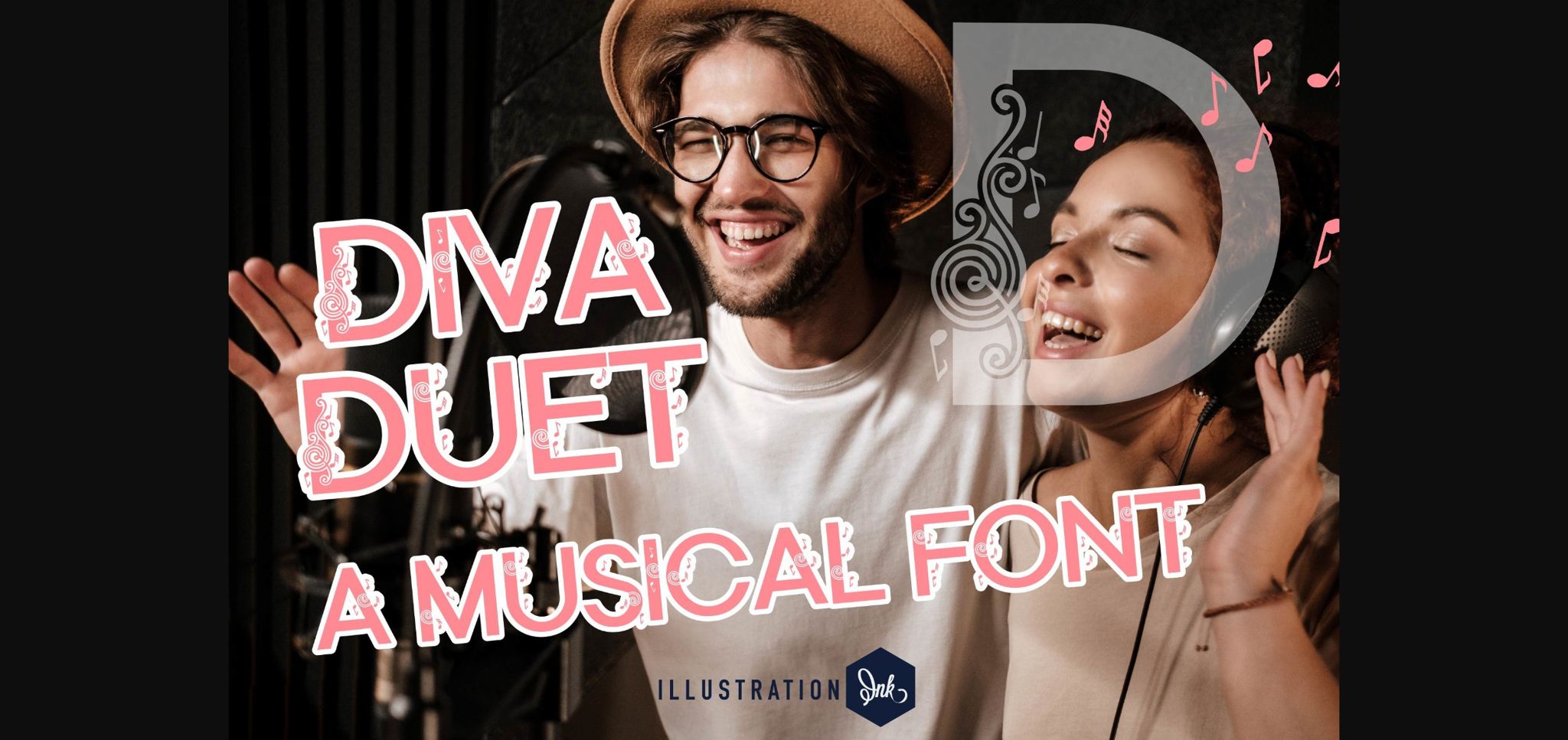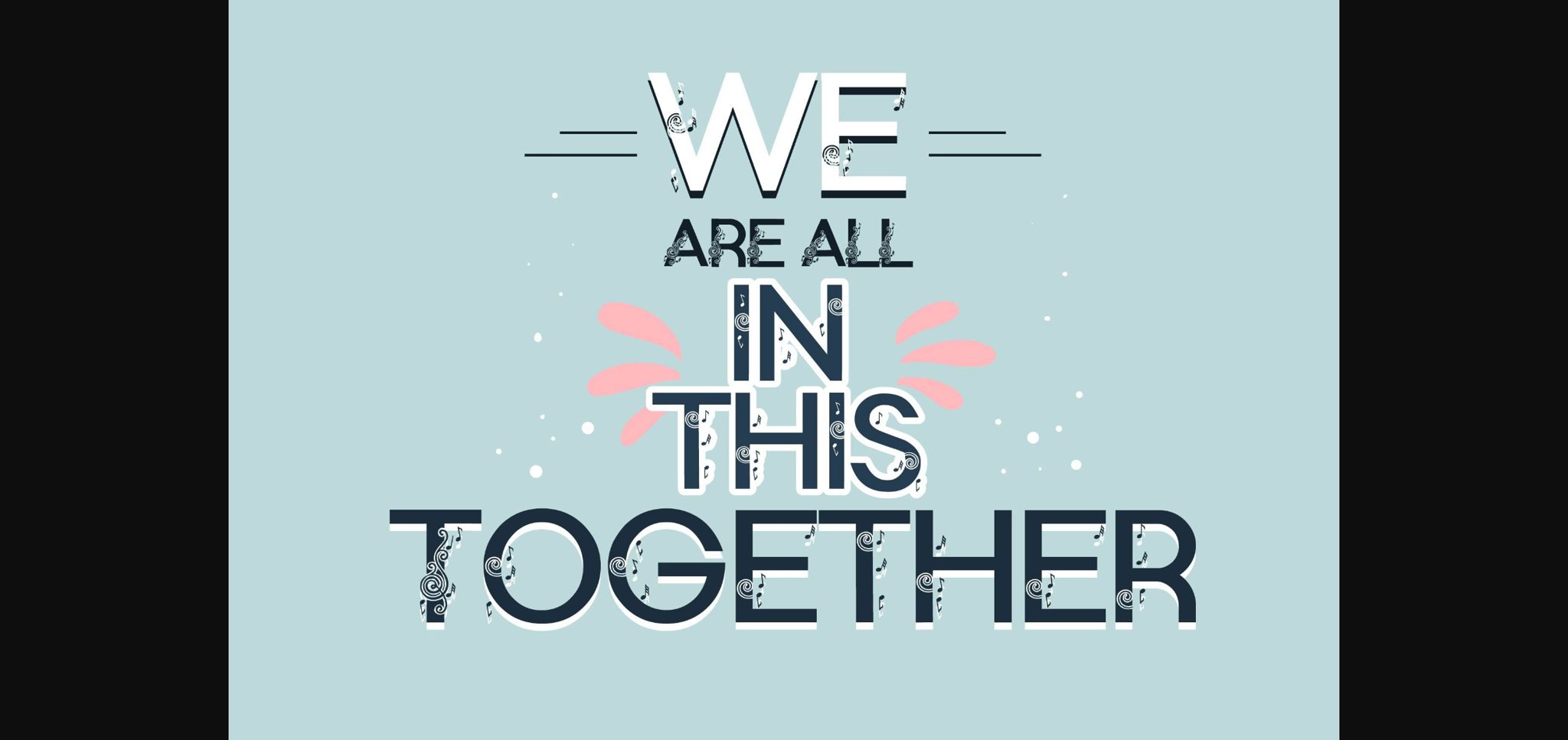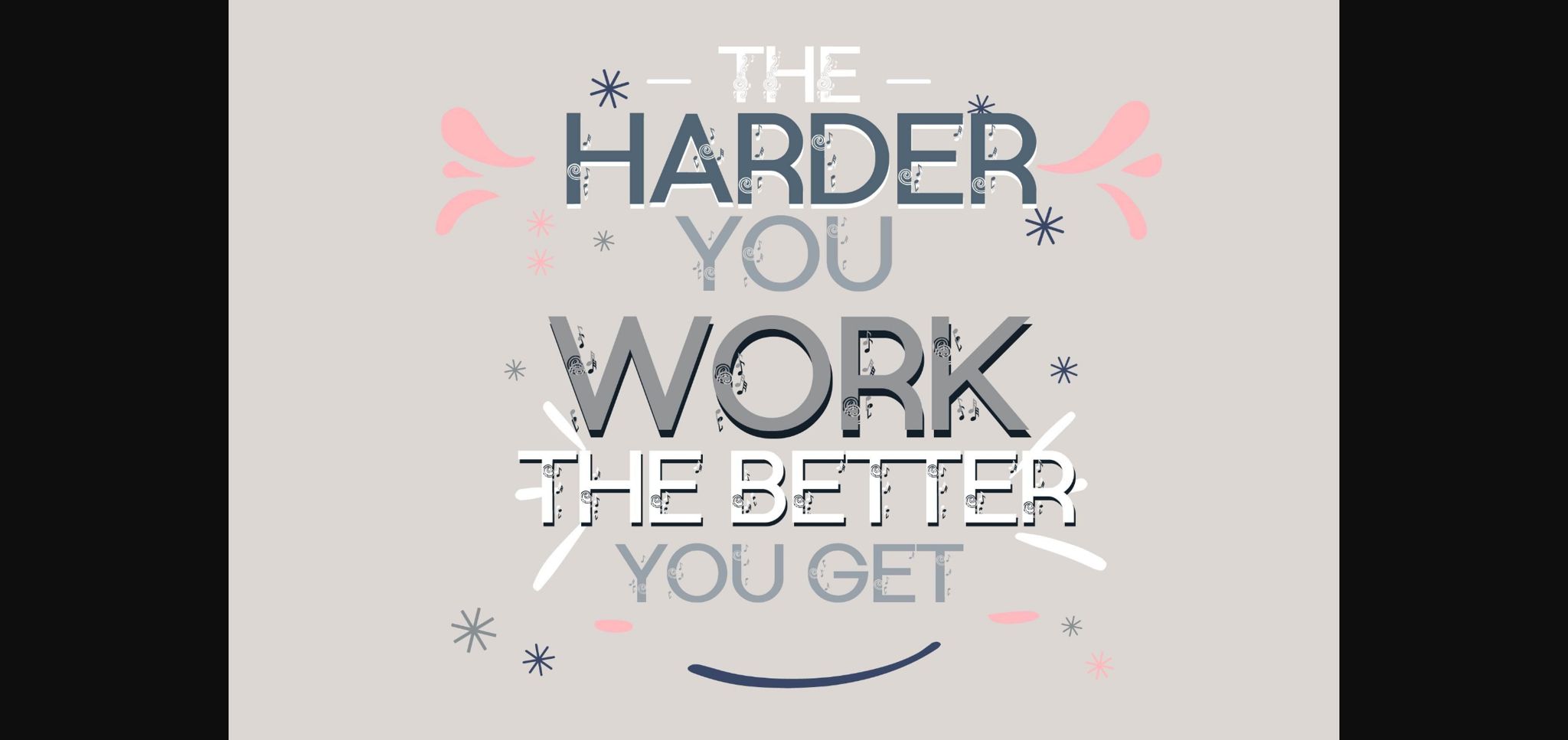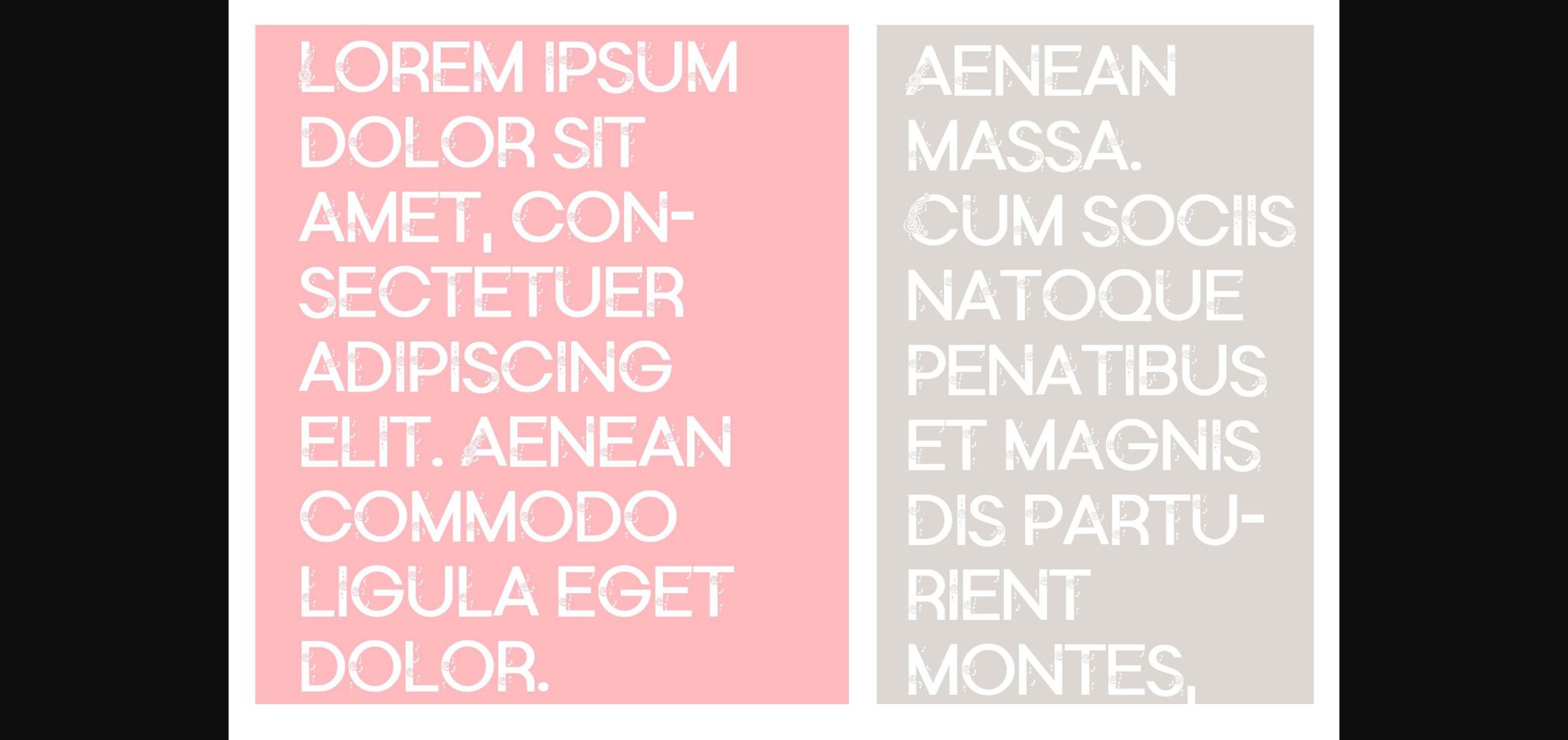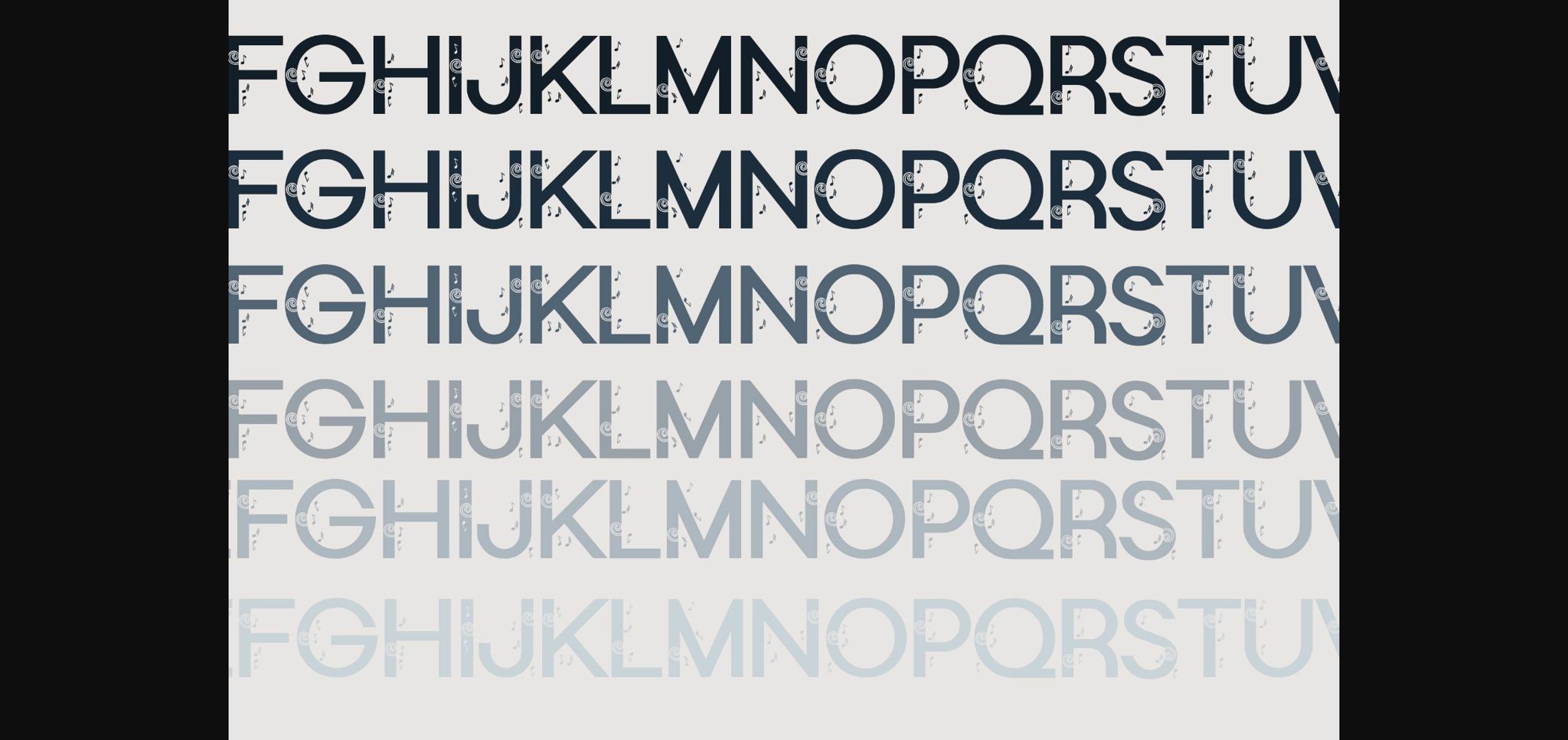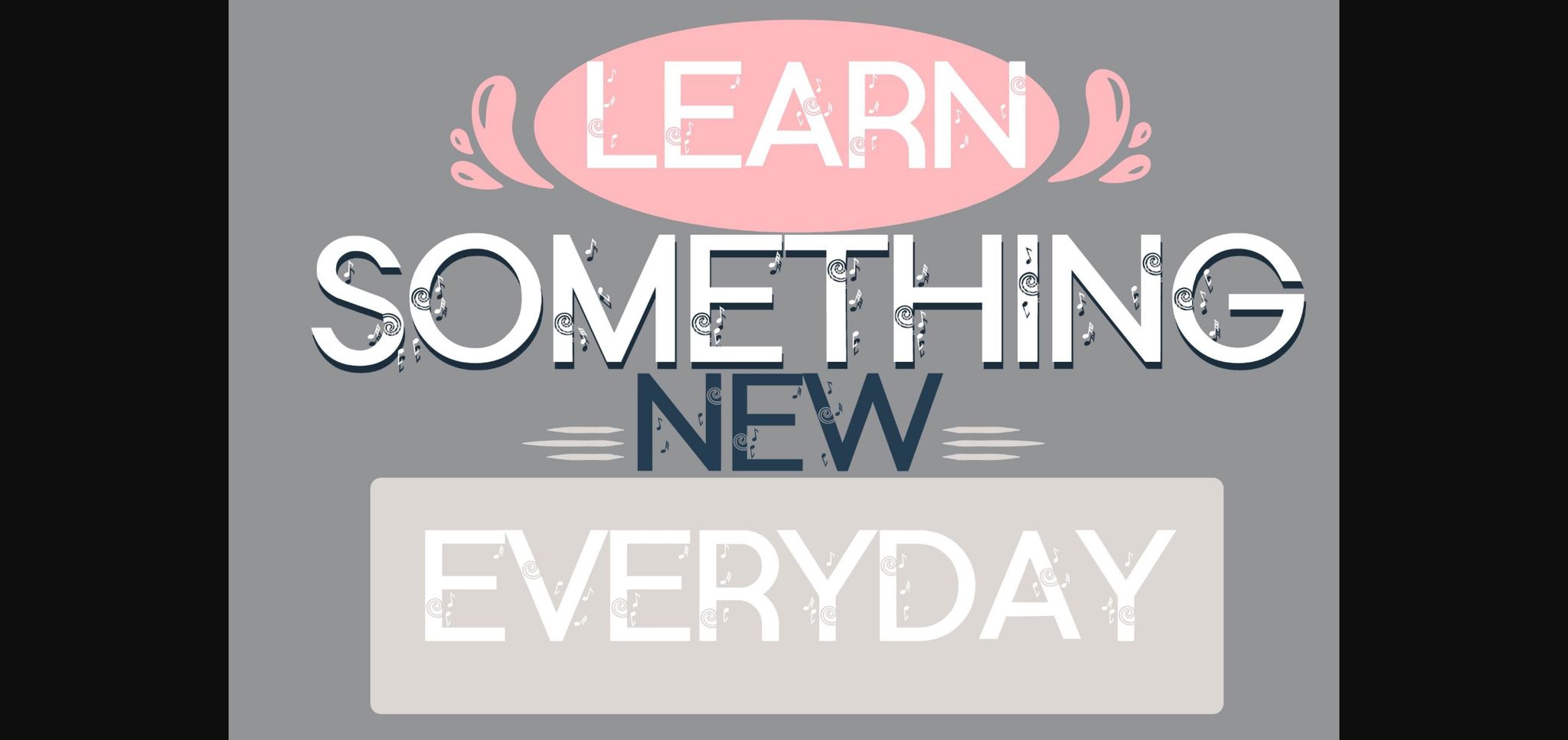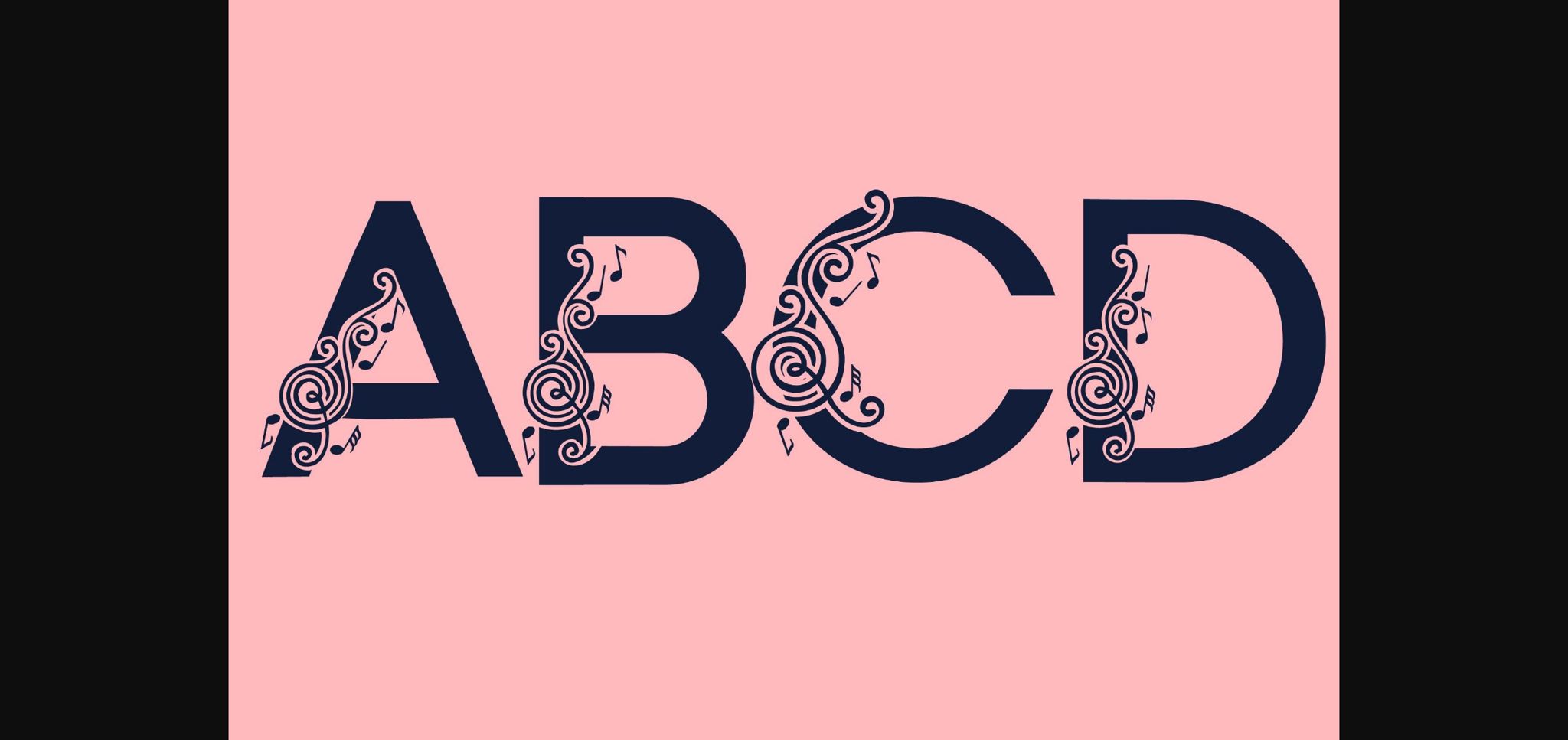
Diva Duet Font
About Diva Duet Font
Diva Duet is a pretty sans serif font that features a flourish with musical notes throughout. Whether you’re using it for crafts, digital design, presentations, or making greeting cards, this font has the potential to become your favorite go-to font, no matter the occasion!